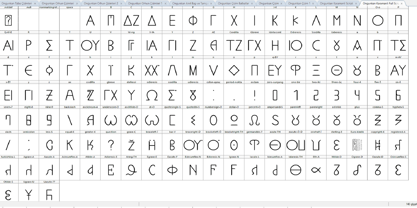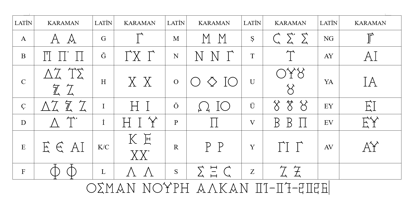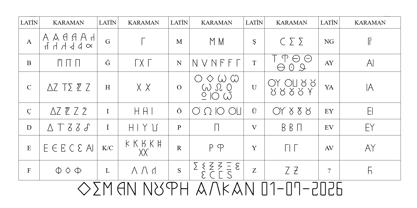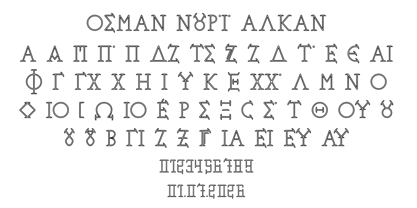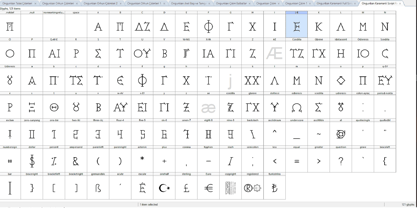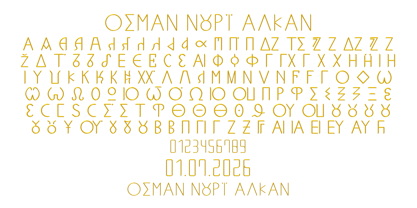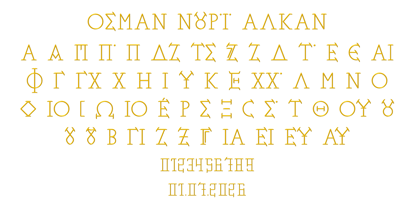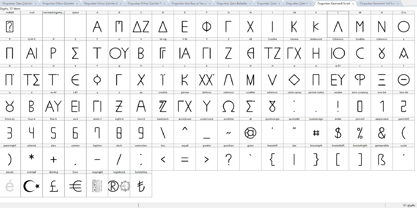
Ongunkan Karamanli Full Script
The Ongunkan Karamanli Full Script Font Family was designed by Osman Nuri ALKAN and published by Runic World Tamgacı. Ongunkan Karamanli Full Script contains 5 styles and family package options. More about this family
To decipher the alphabet, the Greek alphabet was studied. Then, articles related to Karamanli Turkish were examined, along with epitaphs, and the letters were identified. These fonts are based on this research.
Karamanli Turkish (Karamanlıca) is a form of Turkish spoken by the Anatolian Greek Orthodox Christians (Karamanlides) during the Ottoman Empire, written using the Greek alphabet instead of the Arabic script. Key CharacteristicsWriting System: It uses the Greek alphabet. Spoken Language: It is fundamentally Central Anatolian Turkish. The Speakers: Turkish-speaking Orthodox Christians of Anatolia. Self-Definition: Speakers often referred to their written language as "Yavan Turkish" (Plain Turkish). Historical Context and Literary Heritage First Documents: Traces of Karamanli Turkish appear in written texts shortly after the conquest of Constantinople. Development: From the 16th century onwards, it produced a rich literature including religious texts, tombstone inscriptions, and novels. The First Novel: Temaşa-i Dünya (The Exposition of the World), written by Evangelinos Misailidis in the Karamanli script, is considered one of the earliest examples of the novel in Turkish literary history. The Population Exchange: During the 1923 population exchange between Greece and Turkey, religion was the sole criterion. As a result, these Turkish-speaking Orthodox Christians were deported to Greece, where the language gradually faded over generations. Writing Example Turkish words are spelled phonetically using Greek letters. For example:ΑΛΛΑΗ → Allah (God)ΠΕΝ → Ben (I / Me)